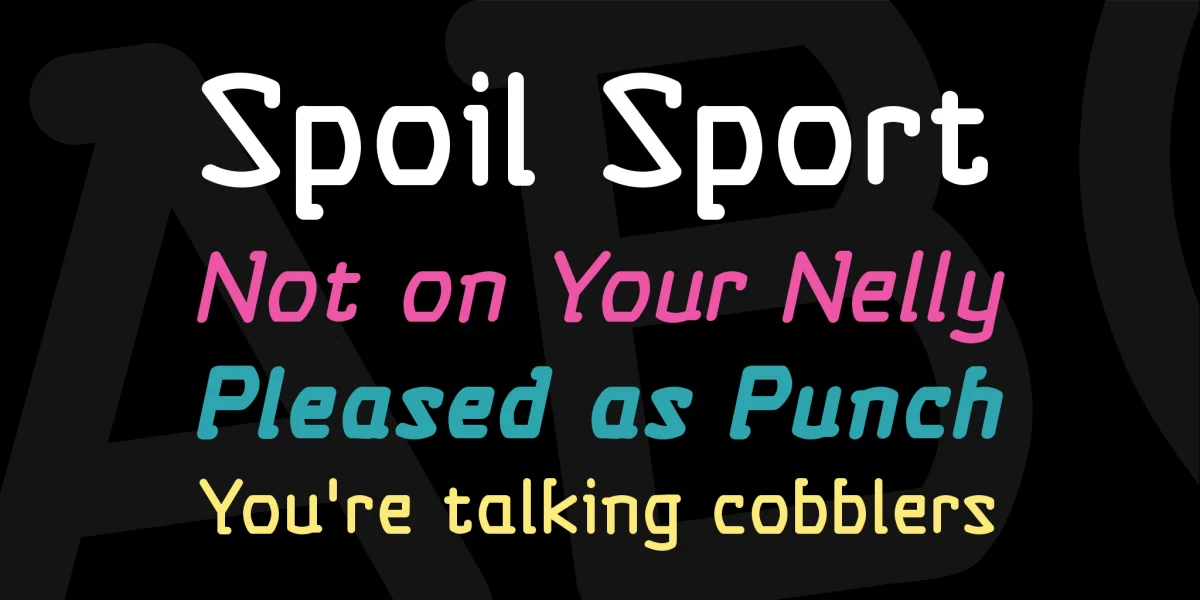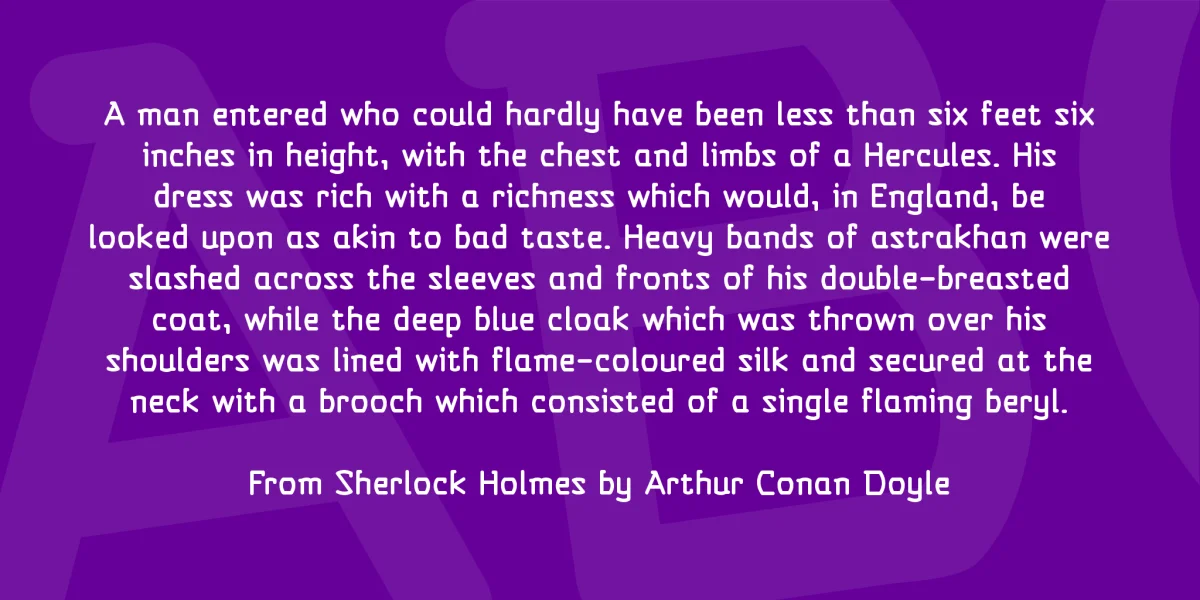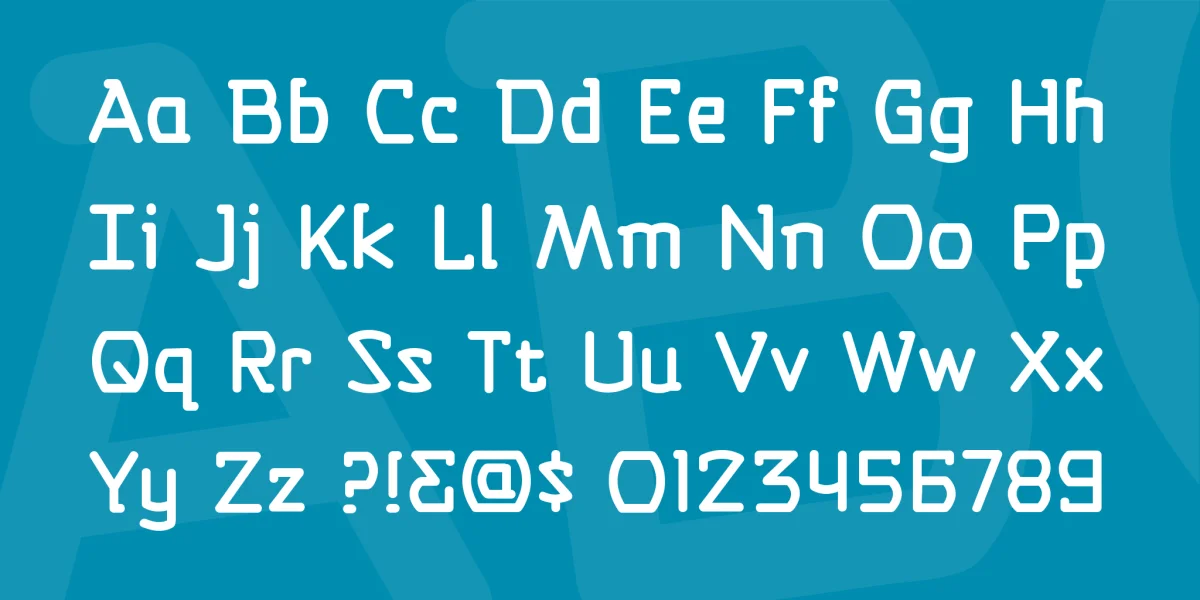
I found myself in a conundrum (your second grammar lesson of the day…) when I was lettering a book that was in lowercase and I didn’t have a groovy enough lowercase computer-style font for a certain Golden Avenger… so I whipped up this little gem and now it’s yours! Comes with Regular, Italic and Bold.